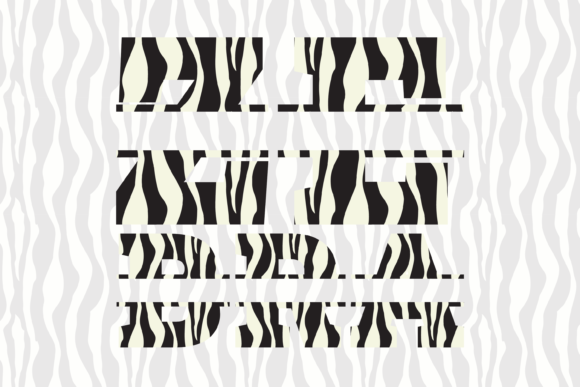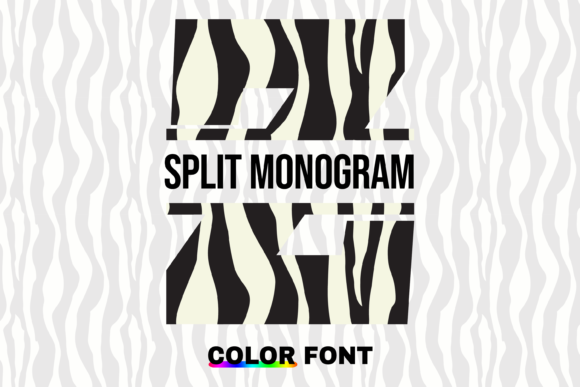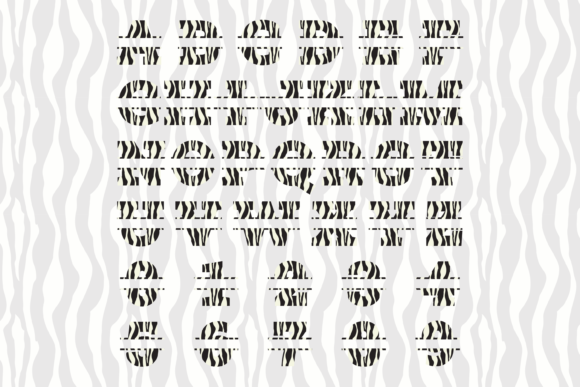
Zebra Split Font
About Zebra Split Font
Zebra Split is an incredibly cool font that features cute zebra elements. Whether you’re working on custom designs, DIY crafts, or any creation that requires a lovely touch, Zebra Split font will be an amazing choice. Here’s why it stands out:
1. Unique Zebra Design: Zebra Split font showcases a unique and eye-catching design with adorable zebra elements incorporated into the letters. The playful and whimsical zebra-themed details make this font a fantastic choice for projects that seek to evoke a sense of fun and creativity.
2. Versatile Application: Zebra Split font is versatile and can be used in various design projects. Whether you’re designing custom graphics, creating personalized crafts, or working on branding materials, this font adds a distinctive touch to your creations. Its cute zebra elements make it particularly suitable for projects related to animals, wildlife, nature, children, and more.
3. Customizable and Easy to Use: With Zebra Split font, customization is simple and hassle-free. Just type the desired text, and the letters will transform into a delightful composition with cute zebra-themed elements. This easy-to-use feature allows you to personalize your designs effortlessly.
4. DIY Crafts and Personal Projects: Zebra Split font is an excellent choice for DIY crafts and personal projects. Whether you’re making greeting cards, party decorations, scrapbooks, or any other handmade items, incorporating Zebra Split font will instantly enhance the visual appeal of your creations. The cute zebra elements will add a touch of charm and playfulness.
5. Captivating Visual Impact: The unique design of Zebra Split font ensures that your designs will stand out and capture attention. The combination of the zebra elements and the font’s layout creates a captivating visual impact. Whether you’re designing for print or digital media, Zebra Split font will make your creations memorable and eye-catching.
6. Child-friendly Designs: Zebra Split font is perfect for projects aimed at children or those with a playful theme. Whether you’re creating designs for kids’ parties, children’s books, educational materials, or toy packaging, the cute zebra elements in this font will appeal to young audiences and add a touch of whimsy to your designs.
In summary, whether you’re working on custom designs, DIY crafts, or any creation that requires a lovely touch, Zebra Split font is an amazing choice. Embrace the cute zebra-themed design and let your creativity soar. With Zebra Split font, your projects will exude charm and playfulness, making them truly unique and captivating.